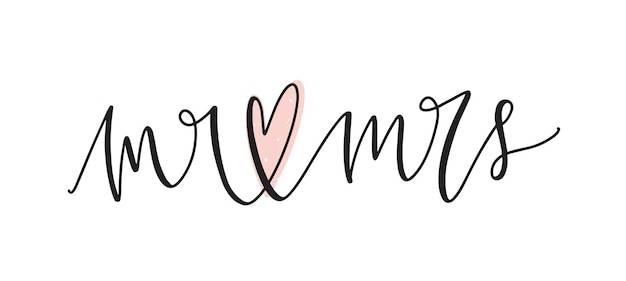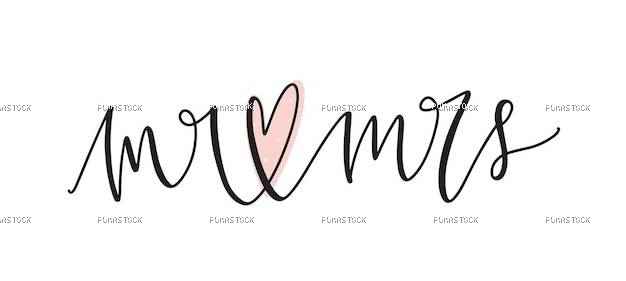
Mr and mrs text or message handwritten with elegant cursive font or script and decorated by heart. celebratory lettering for wedding party. decorative design element. stylish